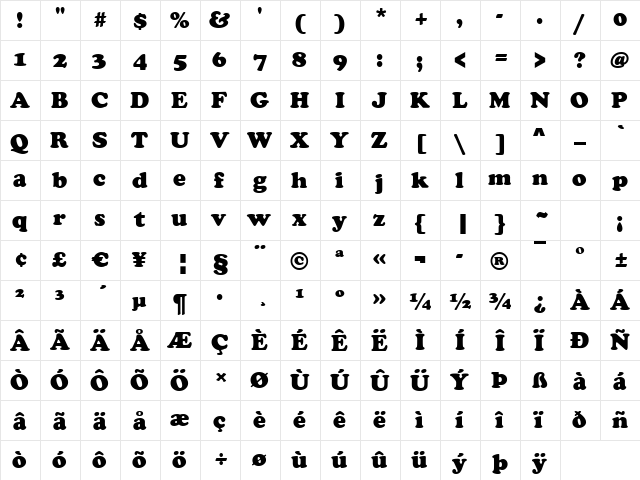
Cooper-Black Regular
Design Context for Cooper-Black Typeface
Cooper-Black offers clean, dependable letterforms without strong stylistic allegiance, making it a practical choice for designers who need flexibility.
Pro Tip: Pair Cooper-Black with a font of contrasting weight or personality to build a more expressive typographic hierarchy.